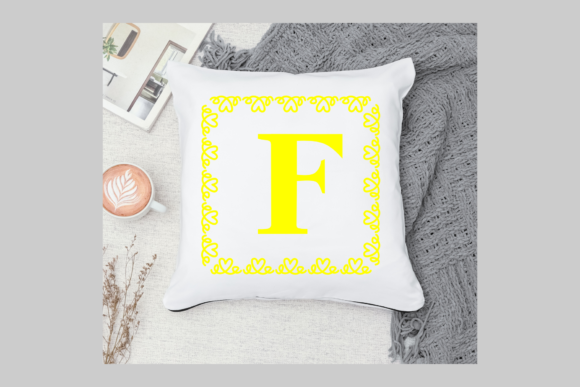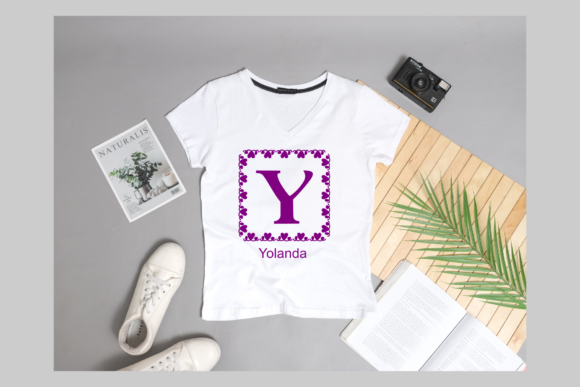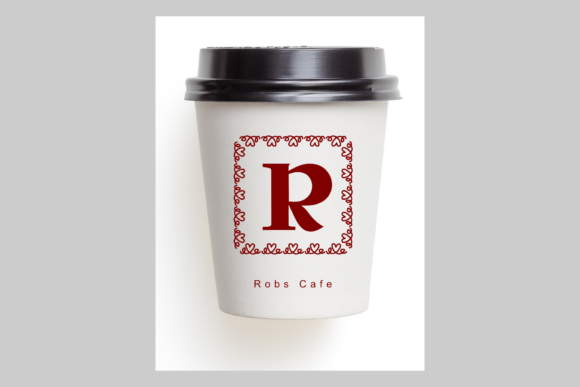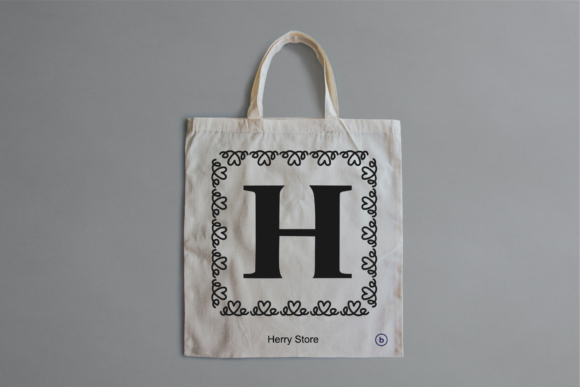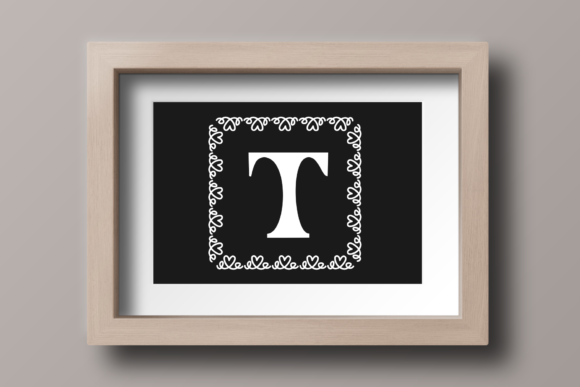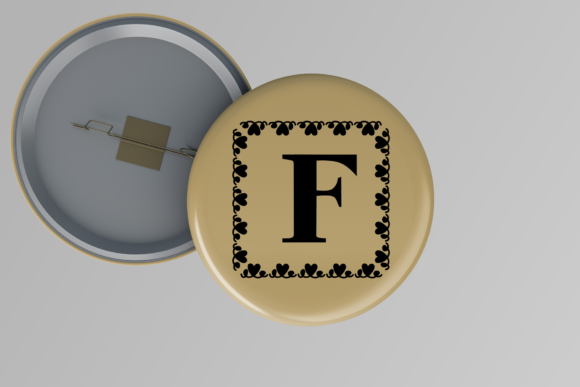
Introduction to Monogram Love Baby Font
As designers, we’ve all been there – staring at a blank page, struggling to find the perfect font to bring our creative project to life. For me, it was a late-night brainstorming session, searching for the perfect monogram font to match the elegant wedding invitation I was designing. That’s when I stumbled upon the Monogram Love Baby Font, and I was instantly hooked. Its intricate details and beautiful design made my heart skip a beat.
With its high-quality design and transparent background, this font is a game-changer for any creative project. Whether you’re working on a love letter, a wedding invitation, or a design resource, the Monogram Love Baby Font is sure to impress. And the best part? It’s available for free download, making it a valuable resource for designers on a budget.
Key Features of Monogram Love Baby Font
- Unique and stylish design perfect for creative projects, such as baby shower invitations, nursery decor, and more.
- Transparent background, making it easy to combine with other design elements and backgrounds.
- Monogram Love Baby Font is a great addition to any design library, offering a creative and elegant touch to any project.
Honest Review: Monogram Love Baby Font
I recently had the pleasure of working with the Monogram Love Baby Font, and I must say it’s a great addition to any design resource. As a designer, I’m always on the lookout for high-quality fonts that can elevate my creative projects. This font definitely delivers.
What works well about the Monogram Love Baby Font is its versatility. The font is available for free download, making it an excellent choice for designers on a budget. The design is also clean and modern, making it perfect for a variety of projects, from invitations to baby shower decorations. The font also features a transparent background, which is a huge plus when it comes to customizing your design.
Here are some of the key features of the Monogram Love Baby Font:
- Clean and modern design
One limitation of the Monogram Love Baby Font is its limited character set. It’s primarily designed for monogramming, so you may find it lacking when it comes to full alphabet support. However, this shouldn’t be a major issue for most designers.
Overall, I’m impressed with the Monogram Love Baby Font. It’s a great resource for designers who need a high-quality font for their creative projects. While it may have some limitations, it’s definitely worth checking out.
Designing with Monogram Love Baby Font in Canva
For the most effective use of the Monogram Love Baby Font, consider the following tips: use it for baby-related designs, such as baby announcements, invitations, and gift tags. Also, experiment with different font sizes and styles to create a visually appealing design.
Common use cases for the Monogram Love Baby Font include baby shower invitations, personalized baby blankets, and custom baby gift tags.